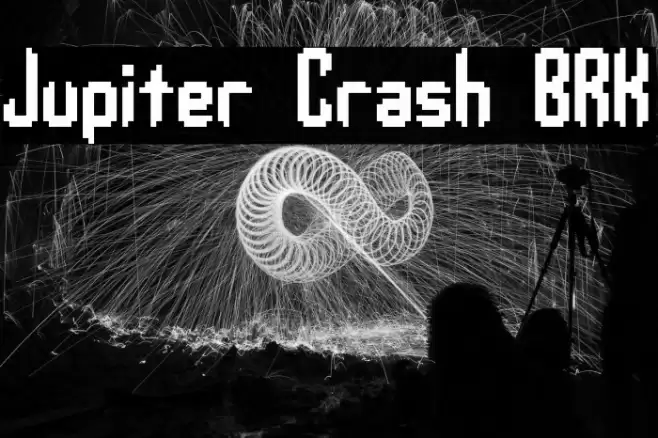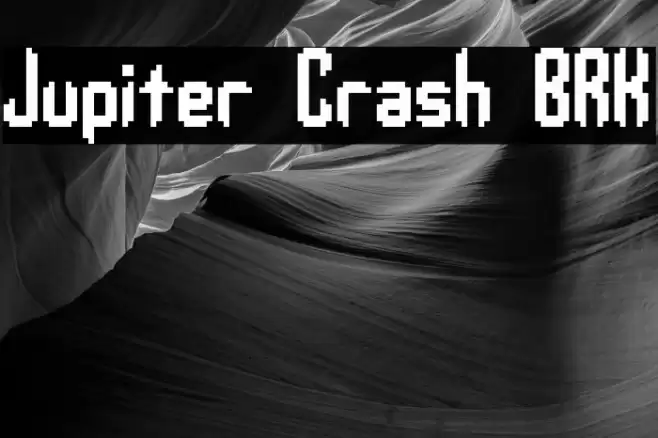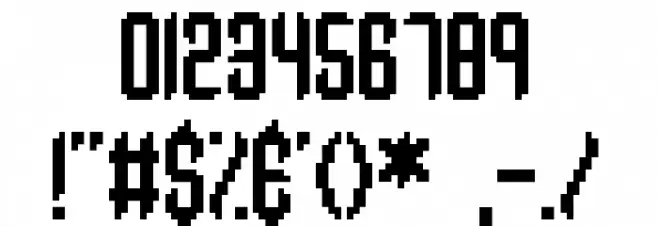
Jupiter Crash BRK Font
Jupiter Crash BRK Description
This font features a bold, pixelated style reminiscent of retro video game graphics. The characters are blocky and geometric, with a uniform thickness that gives them a strong and impactful appearance. The uppercase and lowercase letters maintain a consistent height, while the numerals and special characters follow the same pixelated design. This font's unique style is both nostalgic and modern, making it suitable for projects that aim to capture a sense of digital or technological aesthetics. The characters are tightly spaced, enhancing the compact and cohesive look of the text.
A bold, pixelated font with a retro video game aesthetic from Uncategorized fonts.
- Proposed Projects: Ideal for video game designs, digital art, retro-themed posters, and tech-related branding.
- Character Spacing: Tight
- Overall Style: Retro, Digital